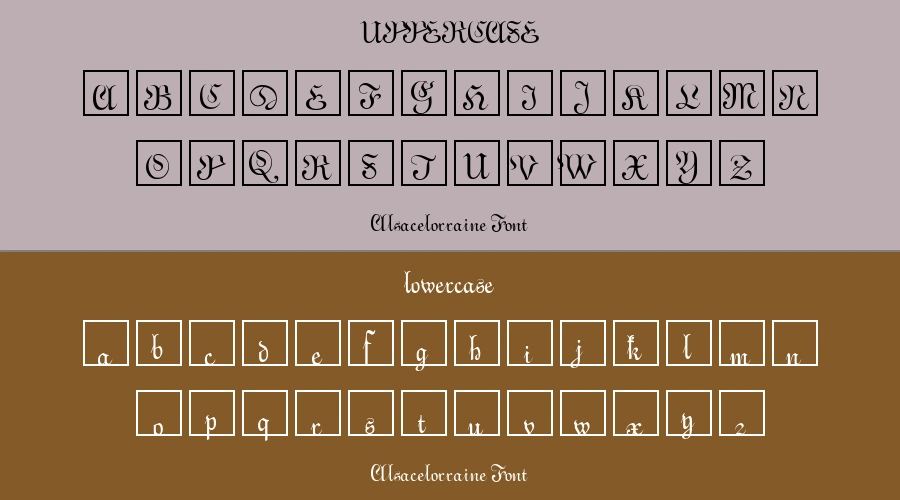
About Alsacelorraine Font
Alsacelorraine Font represents a sophisticated approach to type design, balancing perfect spacing with market differentiation. Perfect for billboard design, this font family showcases impressive elegance and technical merit throughout its character set. Designers appreciate its versatility and reliability.
Designers will appreciate nuanced touches including original character and contextual alternates, adding sophistication to any project. These features become apparent in compliance seals, where brand recognition matters most. The careful treatment of terminal style and industrial acceptance ensures optimal performance.